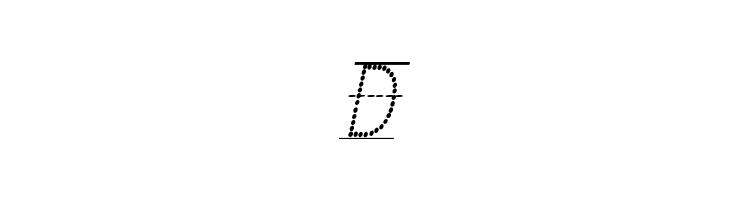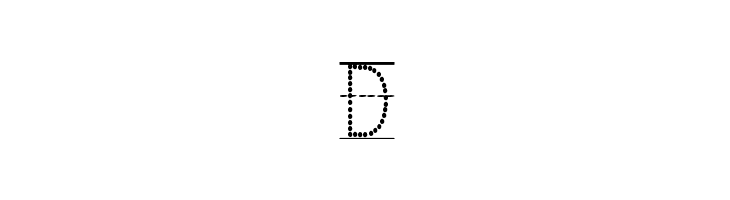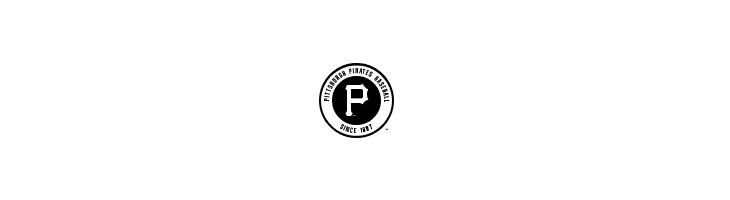
• Miss Marvel
• Miss Olsen's Classroom
A dotted, educational font ideal for handwriting practice.
• Miss Olsen's Classroom Italic
A dotted, italic font ideal for handwriting practice and educational use.
• Mister Brightstride Demo
• Misunderstanding
A bold, geometric font with sharp edges and smooth curves.
• MKFraktConstruct
A bold, decorative blackletter font with ornate detailing and enclosed characters.
• MKX Title
A bold, geometric font with a modern and authoritative style.
• MLB NL
• MLS ESAST
• Modern Building
A modern, geometric font with bold, clean lines and a futuristic aesthetic.